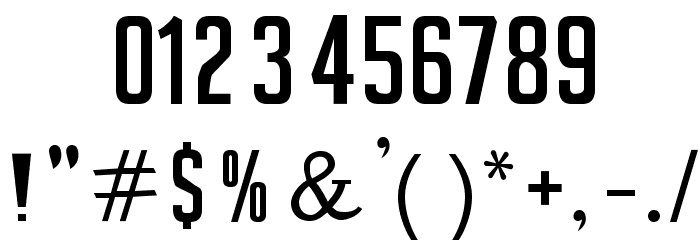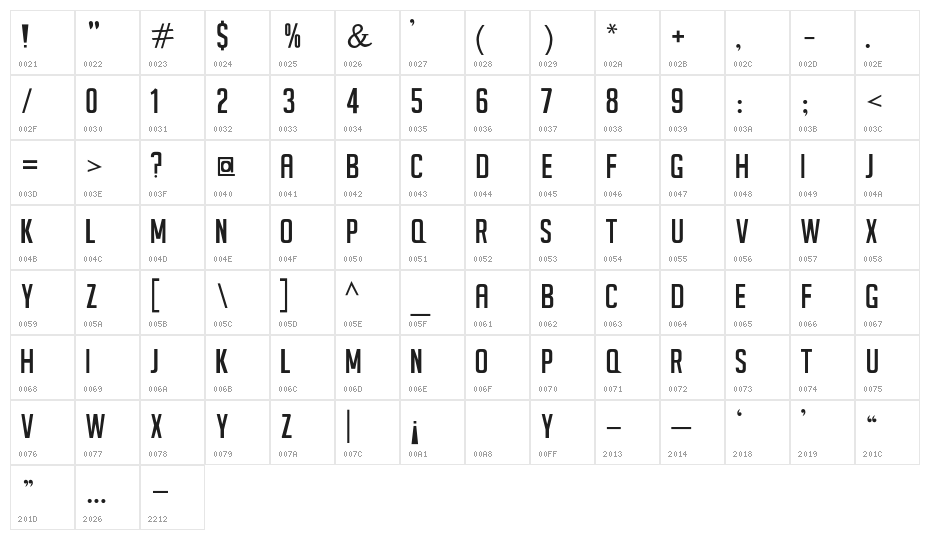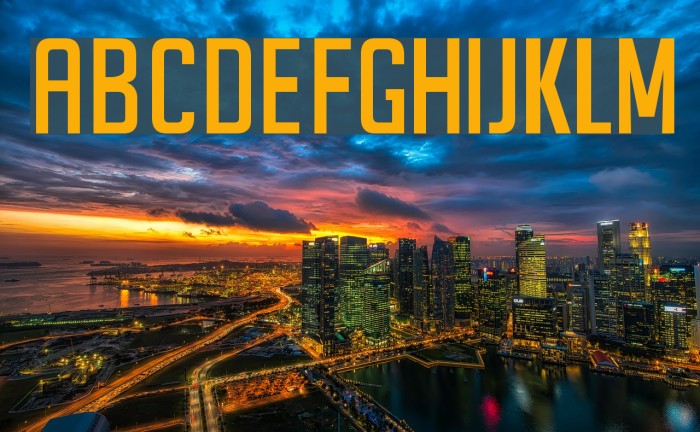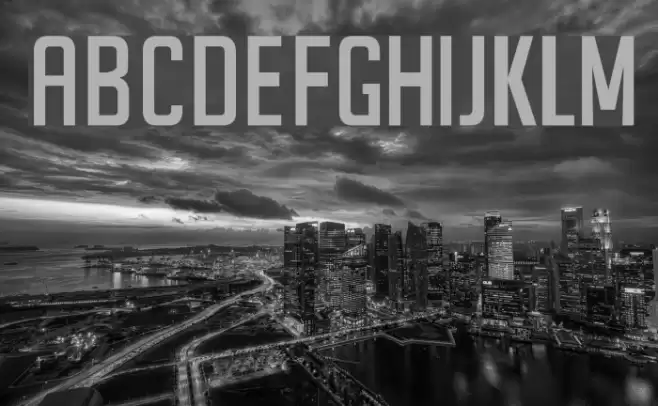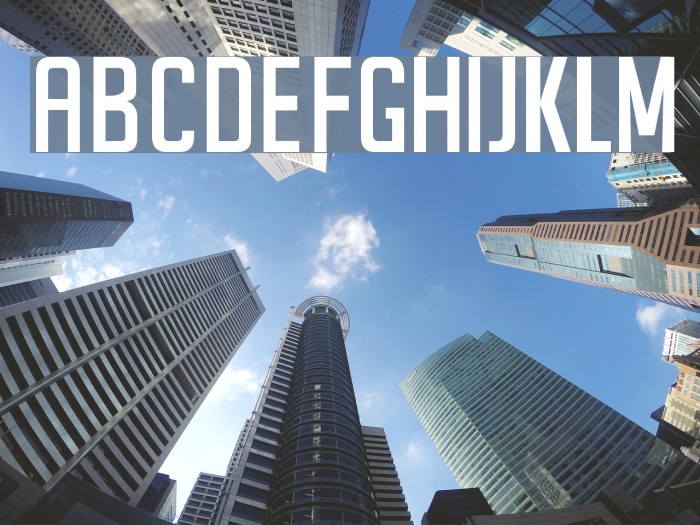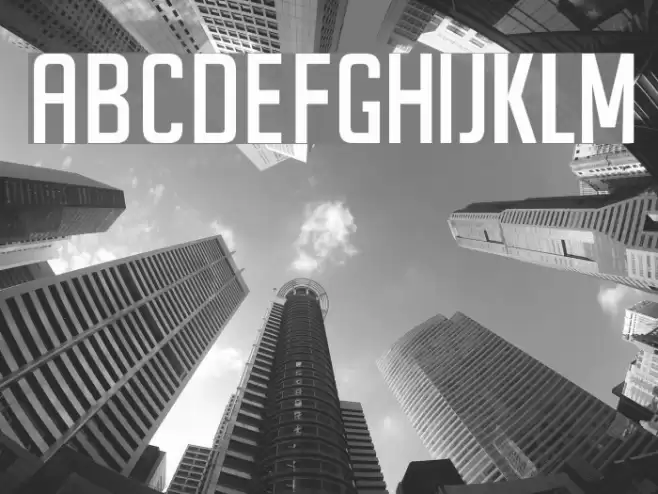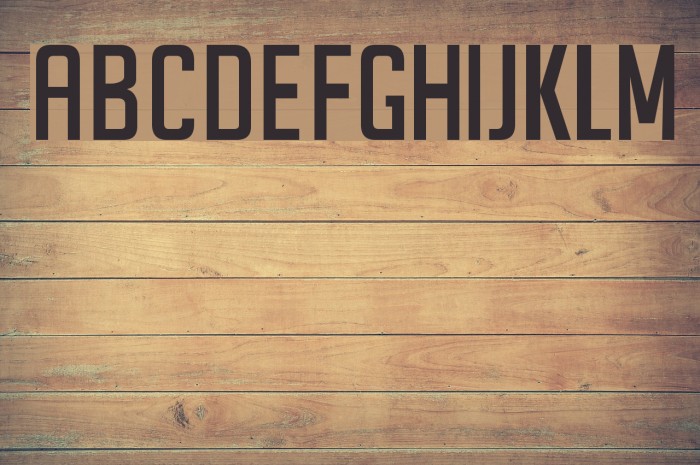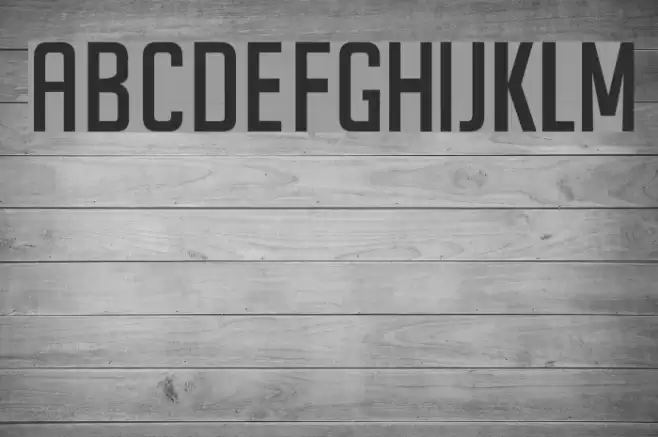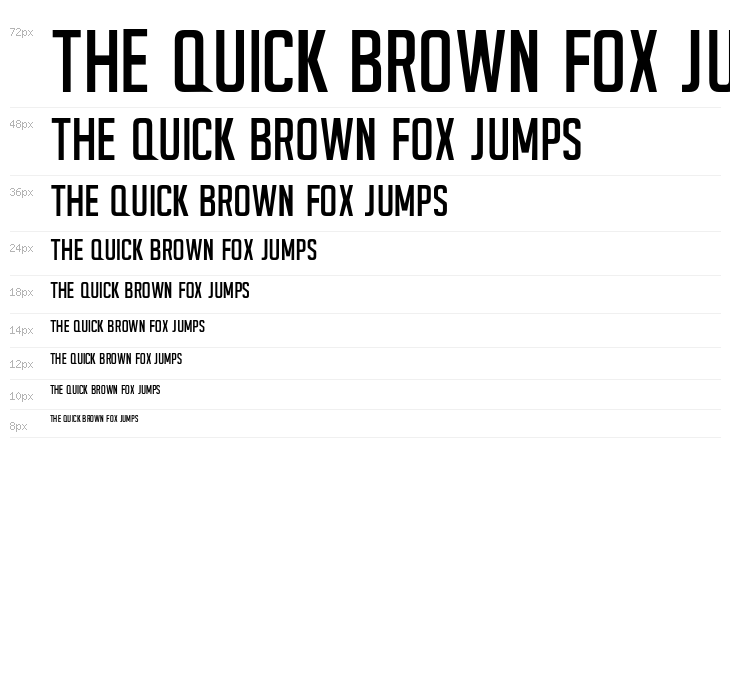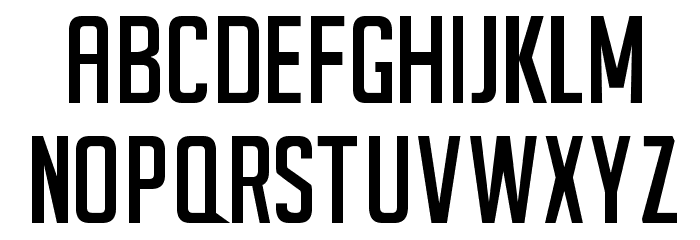
SeilsSans Font
SeilsSans Description
This font features a bold and modern sans-serif style with a strong geometric structure. The characters are tall and narrow, giving it a condensed appearance that is both sleek and efficient. The uppercase letters are uniform in height, while the lowercase letters maintain a consistent baseline, enhancing readability. The numerals are clear and distinct, matching the overall aesthetic of the font. Special characters are well-defined, adding versatility for various design needs. The font's clean lines and minimalistic design make it suitable for contemporary projects.
| Proposed Projects | Ideal for branding, advertising, posters, and headlines where a modern and bold statement is needed. |